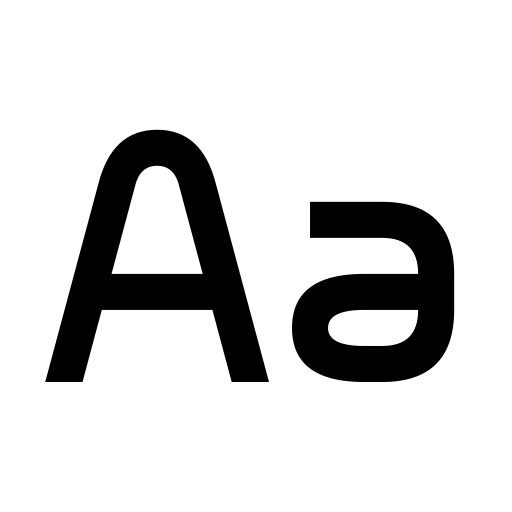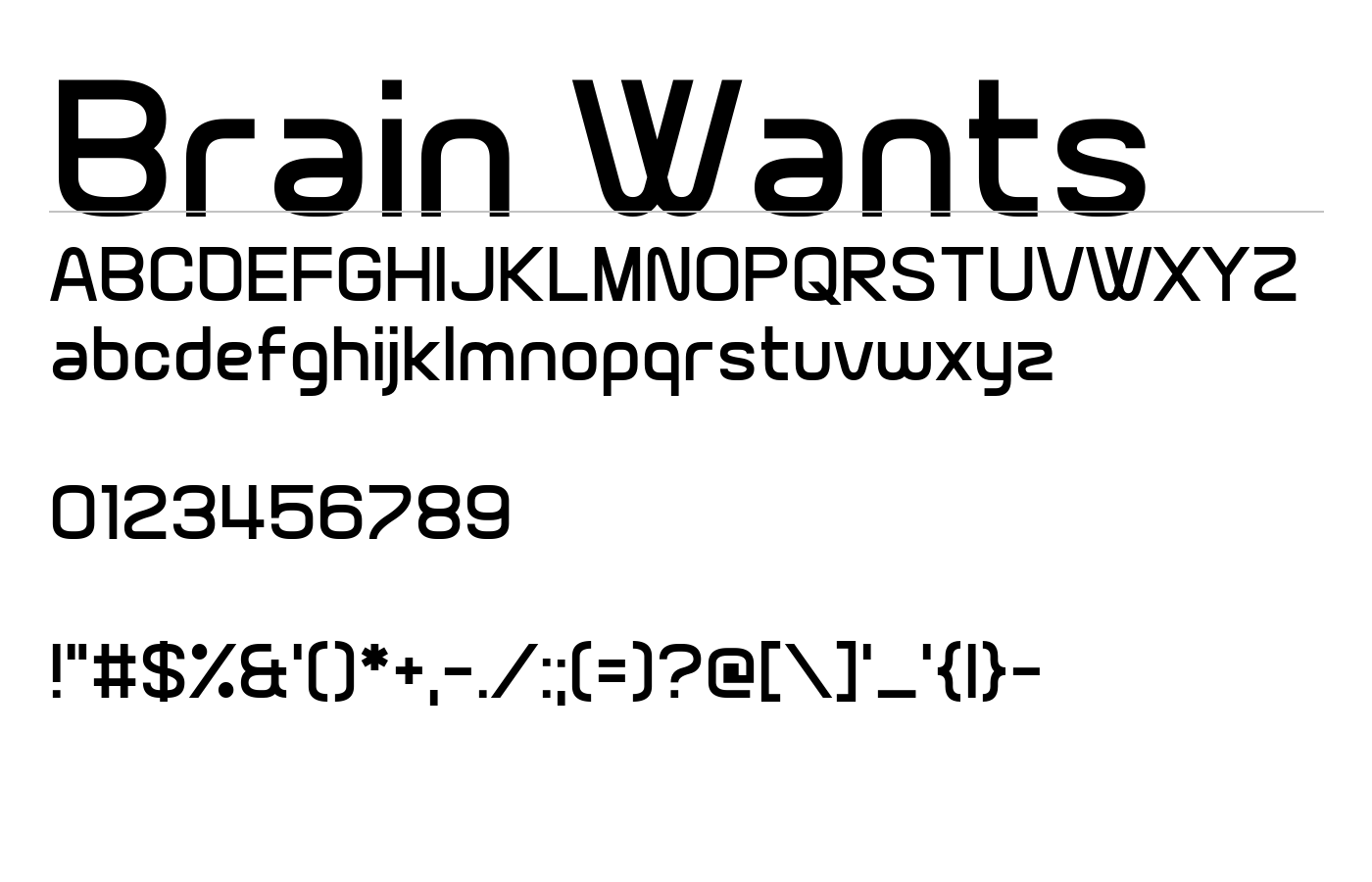
Brain Wants is a modern sans-serif font with a clean, geometric feel and a uniform weight that gives it a balanced, technical appearance. Its slightly condensed letterforms and distinct character shapes, like the unique ‘W’ and single-story ‘a’ and ‘g,’ make it ideal for contemporary branding, headlines, and digital interfaces where clarity and a futuristic yet approachable style are key. This font works well in tech, design, and editorial projects seeking a sleek, innovative look.
Brain Wants Font
About Brain Wants Font
| Font family | Brain Wants Font |
| Designer | NAL |